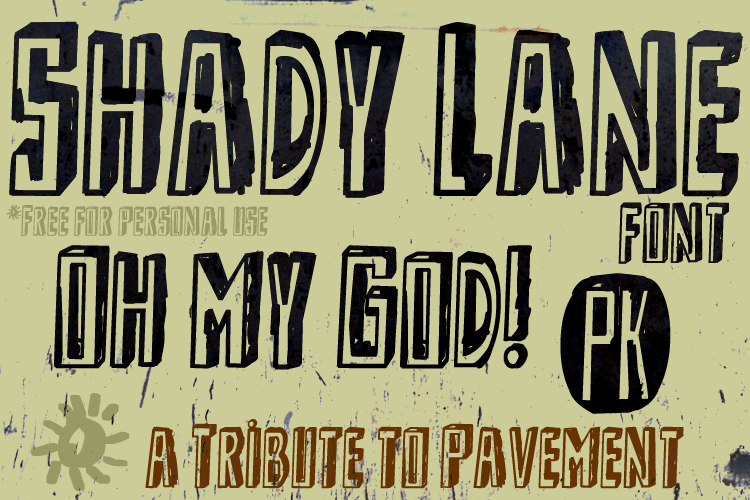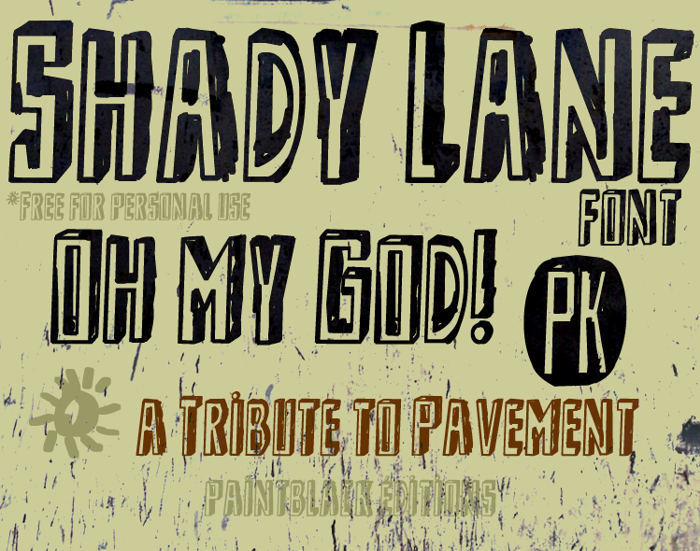
Shady Lane Font
Oh my god... Oh my god.
almost 14 years agoi really love the 3d it is seriously awsome 😄
Really like this font. Raw and playful. reminds me of School days marker pens of my favourite skate wheels on school bag.